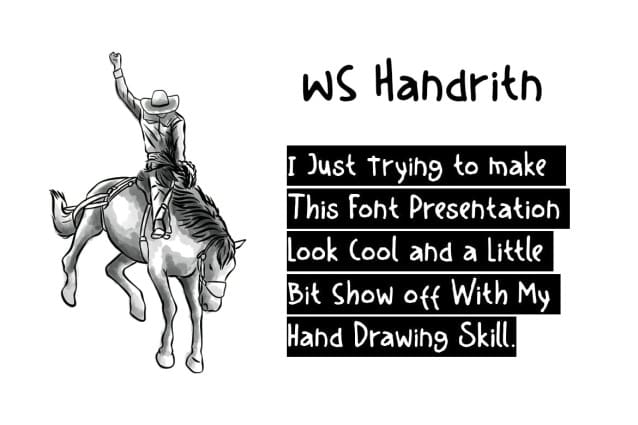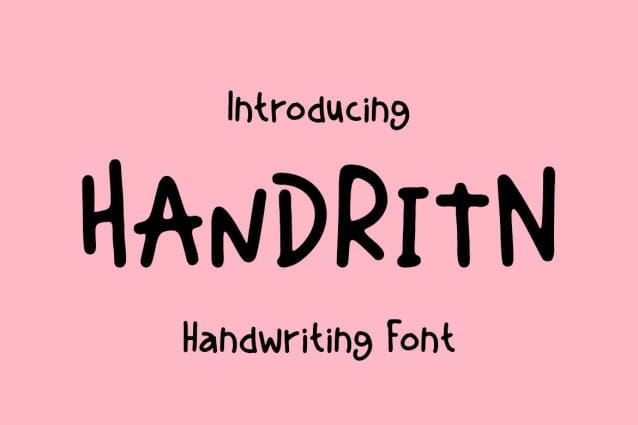
WS Handritn Font
WS Handritn Font is a handwritten font that stands out for its uniqueness and expressive quality. With its lowercase and uppercase letters, as well as full capitals alternatives, this font offers a wide range of creative options, allowing designers to infuse a personalized and human touch to their creations